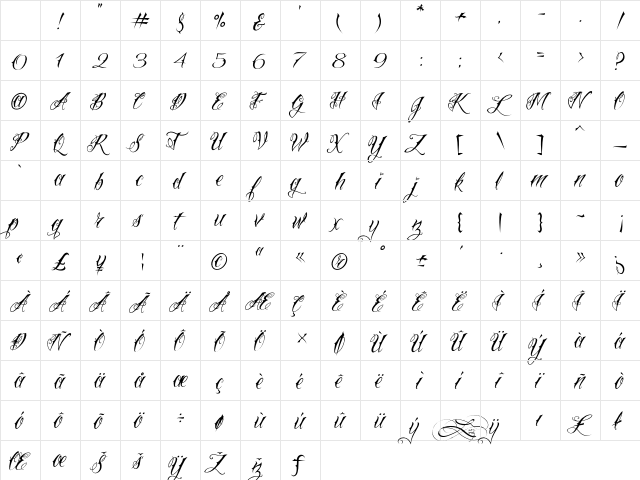
Vtc-NueTattooScript Regular
Foundry: WolfBainX-aka-Larry E. Yerkes, Vigilante Typeface Corporation
Designer: WolfBainX-aka-Larry E. Yerkes, Vigilante Typeface Corporation
Design Context for Vtc-NueTattooScript
Vtc-NueTattooScript flows with the natural rhythm of handwritten lettering, making it ideal for designs that call for warmth and personal expression.
Font Pairing: Combine Vtc-NueTattooScript with a simple geometric sans for maximum contrast - the tension between flowing curves and clean structure is a classic typographic pairing.
Pro Tip: Use Vtc-NueTattooScript for short runs of text - names, titles, or taglines. Extended body copy in script faces tires the eye quickly.
Who designed the Vtc-NueTattooScript Regular font?